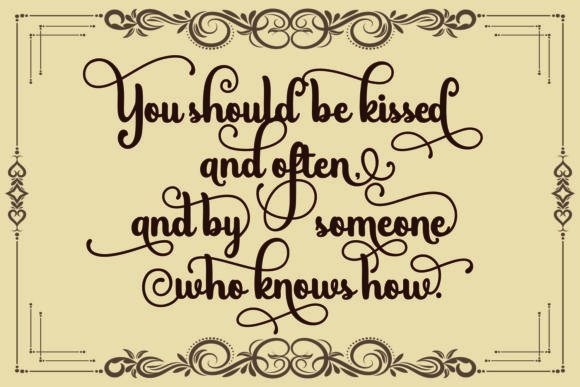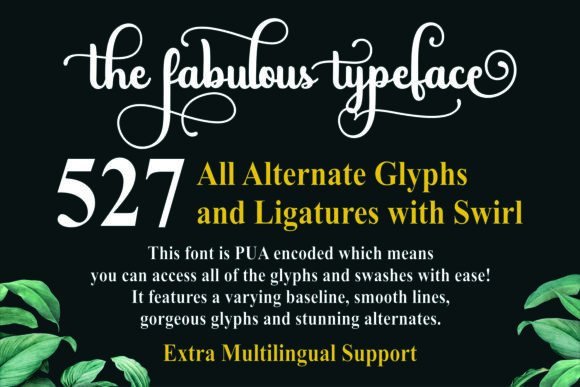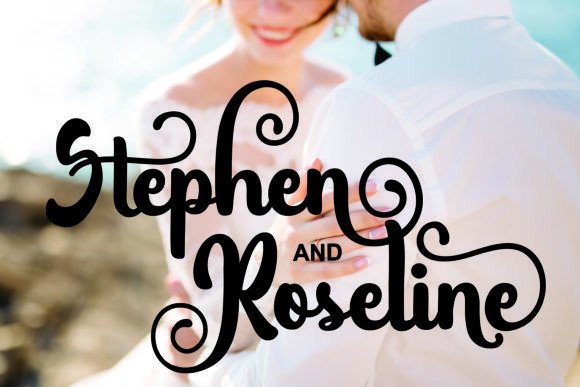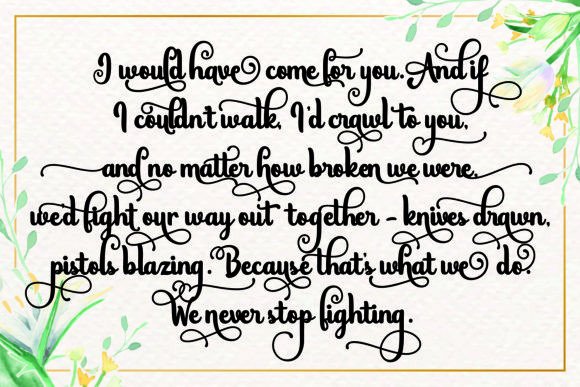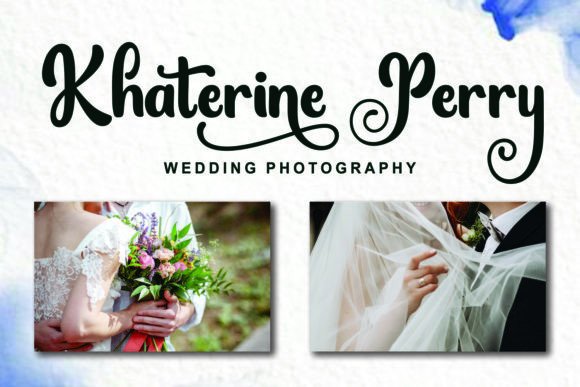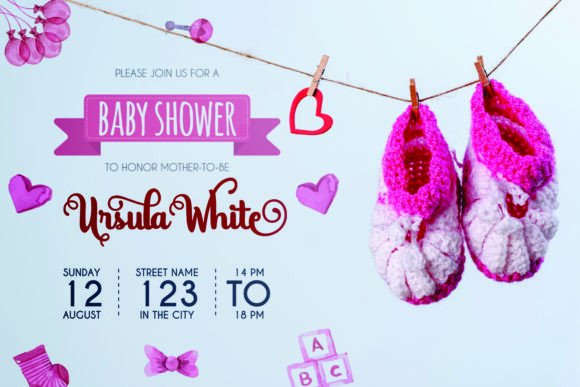
Introduction to Margaretha Font
As you sit down to work on your latest creative project, a spark of inspiration strikes. You envision a beautiful Easter-themed design that will make your loved ones smile, but you’re not sure where to start. That’s where the Margaretha Font comes in – a delightful script handwritten typeface designed to infuse your projects with the charm and warmth of the Easter season.
With its beginning and ending washes tails for each character, Margaretha Font offers a myriad of alternative glyphs, allowing you to create stunning Easter-themed designs that exude creativity and elegance. Whether you’re crafting Easter cards, designing Cricut projects, or adding a touch of festive flair to your embroidery, this design resource is a must-have for any designer looking to elevate their creations with a touch of handmade charm.
Key Features of Margaretha Font
- High-quality, elegant design suitable for various creative projects, including wedding invitations, greeting cards, and more.
- Unique, hand-drawn style with a transparent background, allowing for easy customization and versatility.
- Includes uppercase and lowercase letters, as well as numbers and punctuation marks, making it a comprehensive font for various design needs.
Honest Review: Margaretha Font
I recently came across the Margaretha Font, and I was impressed by its unique charm. As a designer, I’m always on the lookout for high-quality fonts that can elevate my creative projects.
- Unique aesthetic: The Margaretha Font has a distinctive style that sets it apart from other fonts in its category.
- Limited language support: The font’s character set is limited to a few languages, which may be a drawback for designers working on international projects.
- No bold or italic variations: While the font’s regular weight is beautiful, the lack of bold or italic variations may limit its use in certain design contexts.
Overall, the Margaretha Font is a solid addition to any designer’s toolkit. Its unique style and free availability make it a great resource for creative projects. However, its limitations should be considered when choosing this font for specific design tasks.
The Margaretha Font is ideal for a wide range of creative projects, including:
– Presentations
– Logos
– Business cards
– Academic papers